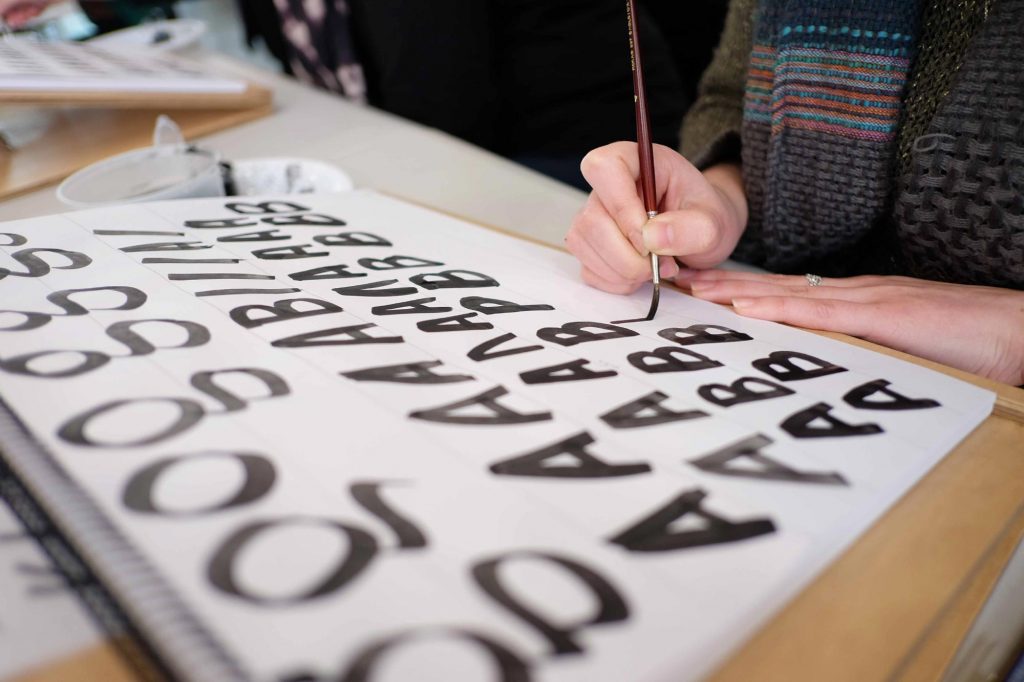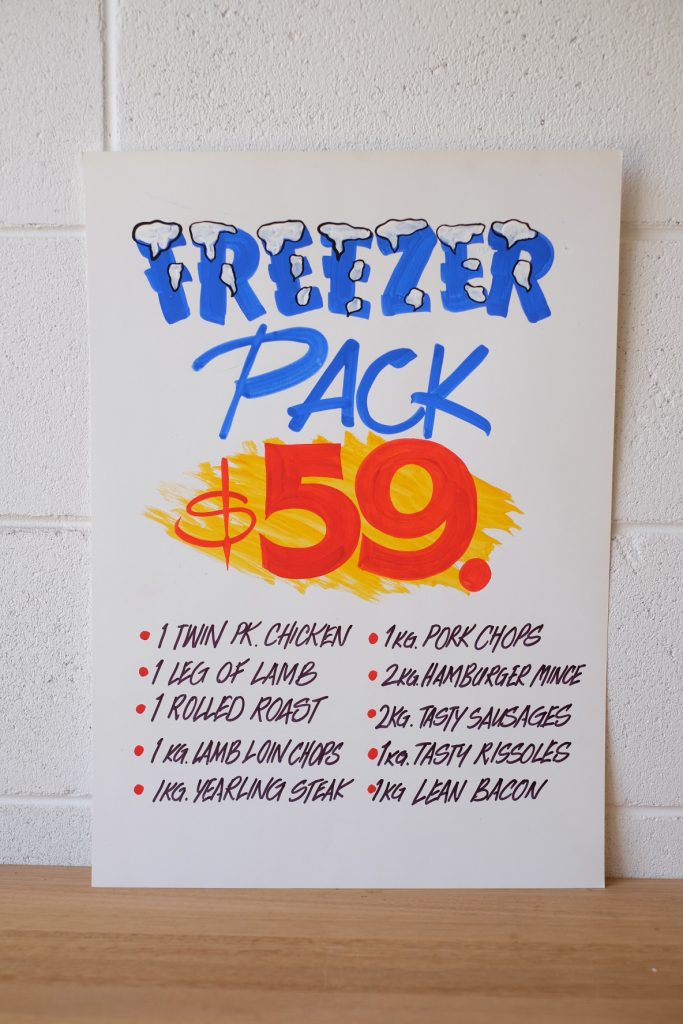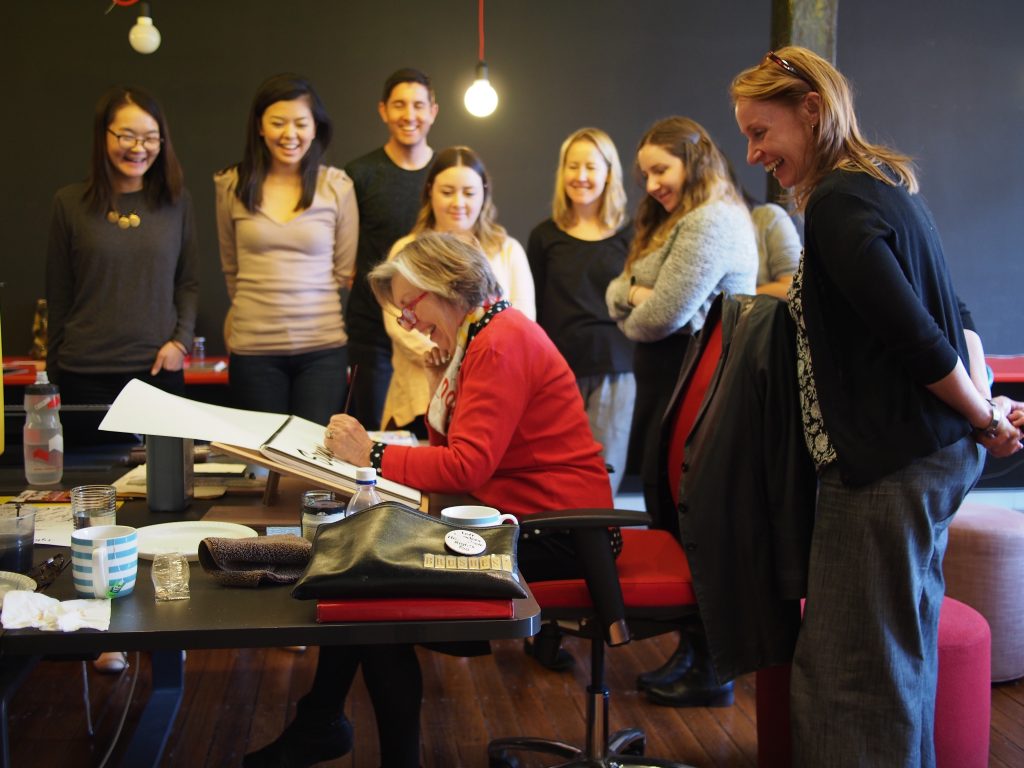
Brush Lettering Tour with Barbara Enright & Carla Hackett
Professional artists Barbara Enright and Carla Hackett will soon be on a brush lettering tour, and they will be bringing their skills and experiences to workshops in London and New York. Barbara began learning showcard and ticket writing fifty years ago and has really developed her skills within the area of sign painting. Carla makes up one-quarter of the lettering girl group 'The Letterettes' and has worked on some unique projects. Both talented ladies have been featured on Lettering Tutorial in the past. The pair teamed up previously to create a 'Learn Brush Lettering' course, which you can read more about in this detailed review article. I have also had the pleasure of interviewing Carla as part of the 'Lettering Legend' series along with the rest of the Letterettes. Needless to say, Carla and Barbara have a multitude of talent!
Brush Lettering Tour
Barbara and Carla will be presenting a two-day beginners brush lettering workshop in New York from the 5th - 6th August, and a second one in London from the 12th - 13th August which will be hosted by Shillington College.
The beginners workshop is suitable for anyone looking to get started with brush lettering, or anyone who wants to learn some new brush lettering styles.
They will also be presenting another workshop in London from the 19th - 20th August, which will focus on the skill of developing showcards. The workshop will be hosted by the amazing lettering agency Better Letters, who specialise in organising one of a kind lettering workshops which take place worldwide.
Showcards are commonly used in retail and often market products and offers. They are beautiful, graphical hand painted signs which can frequently be taken for granted. We come from a society where so much is created digitally, that it is difficult for some to appreciate the abilities that are needed to create showcards by hand. It is rare to come across a workshop that teaches such a specialist skill, and is not a workshop to be missed if it is an area that interests you.
Workshop Bonus